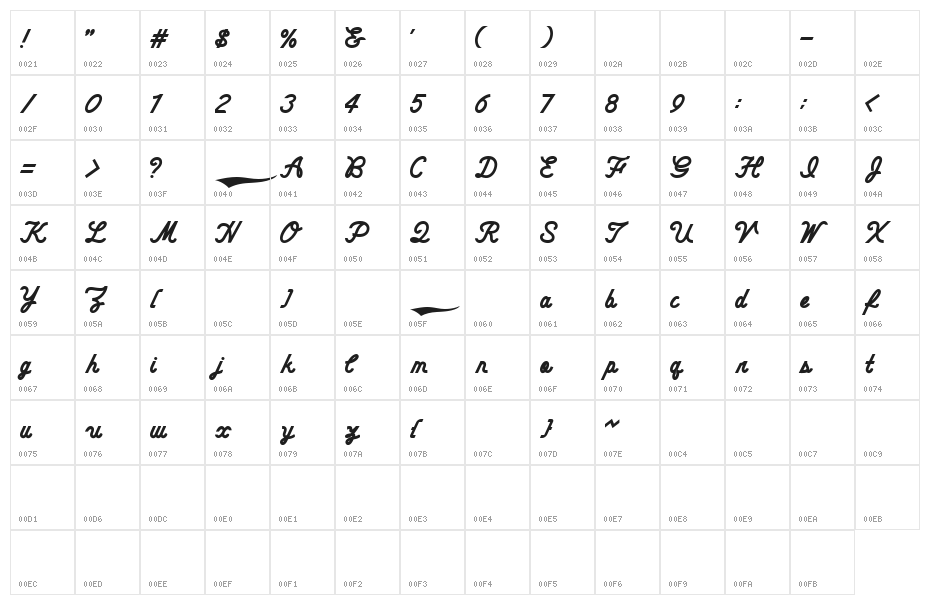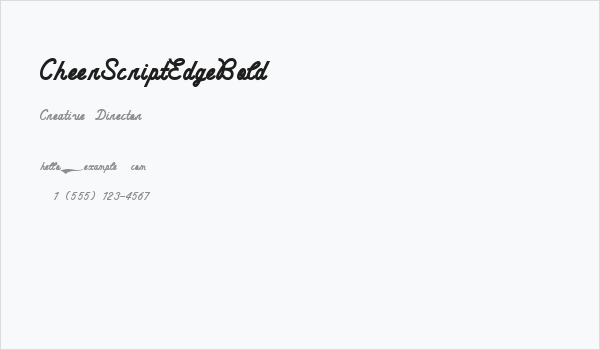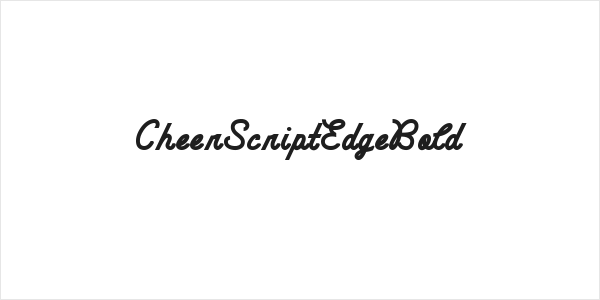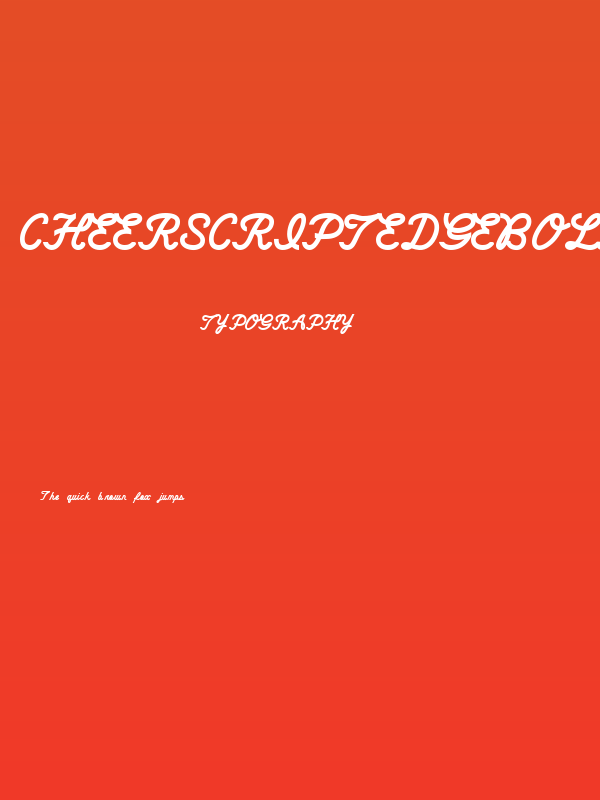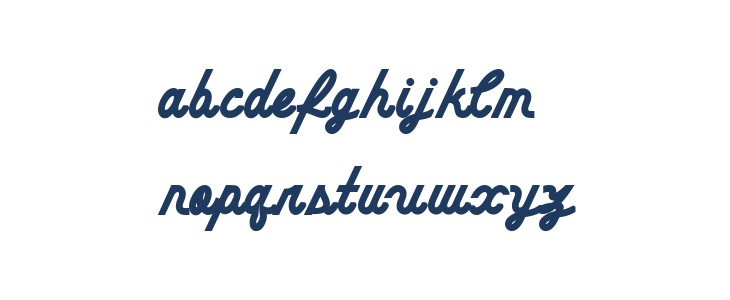
CheerScriptEdgeBold Font
CheerScriptEdgeBold Description
This font features a bold, cursive style with a playful and energetic flair. The letters are connected in a flowing manner, creating a sense of movement and dynamism. The uppercase letters are slightly more embellished, with loops and swirls that add a decorative touch. The lowercase letters maintain a consistent flow, enhancing readability while retaining the script's artistic nature. Numbers and special characters are designed to match the overall aesthetic, ensuring a cohesive look across all text elements. The font's bold weight and smooth curves make it ideal for projects that require a lively and engaging appearance.
| Proposed Projects | Ideal for greeting cards, invitations, branding, and social media graphics. |